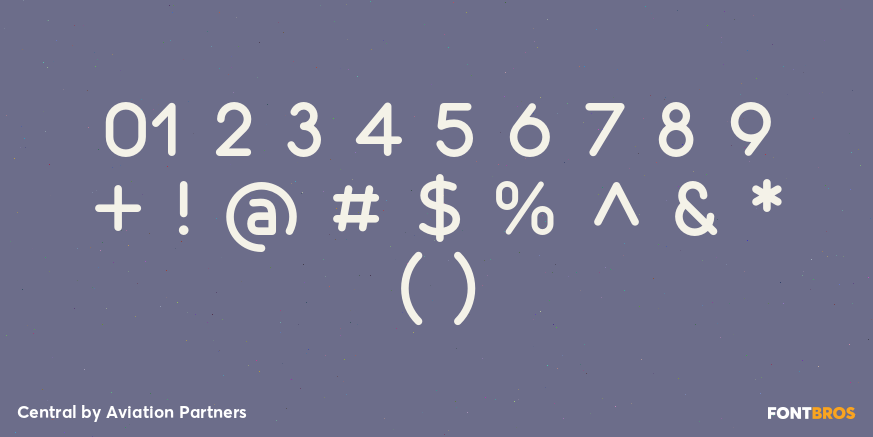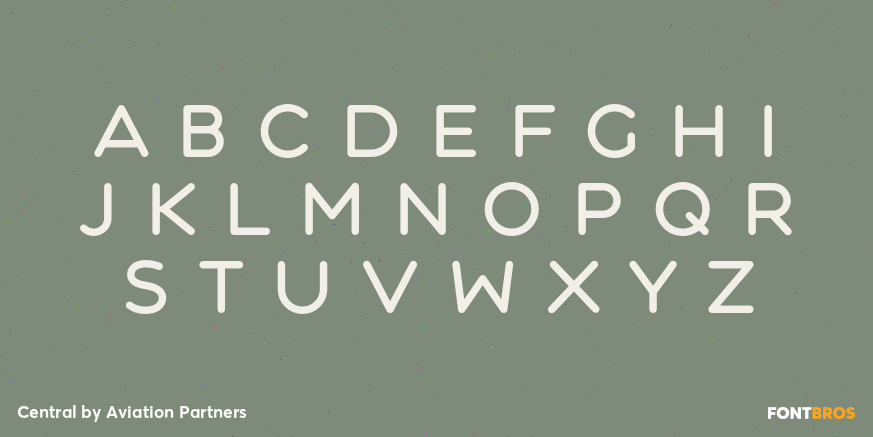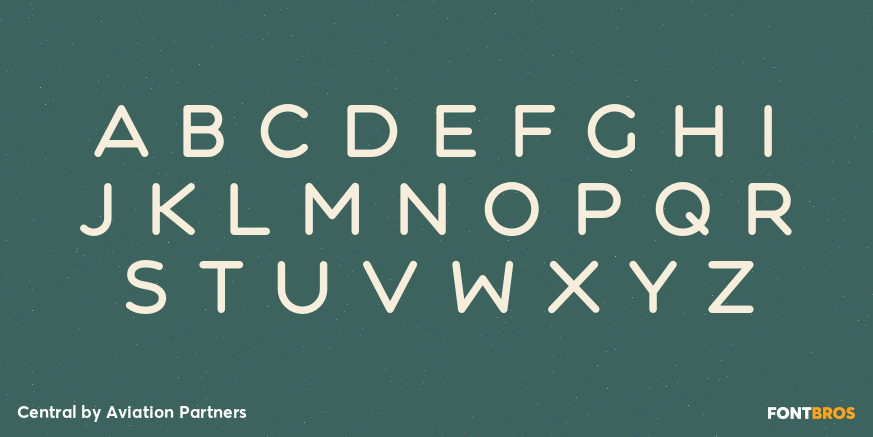
Central
Font Family by Aviation Partners
Central was developed specifically as a titling font for a theatre-hub website. The pure geometric forms and elegant simplicity provide a pleasing contrast to small screen text sizes.